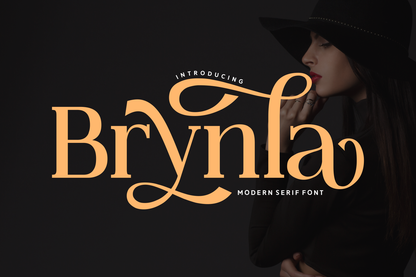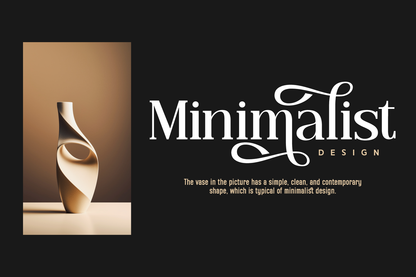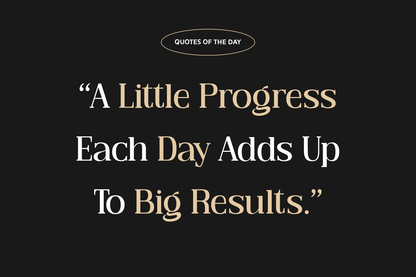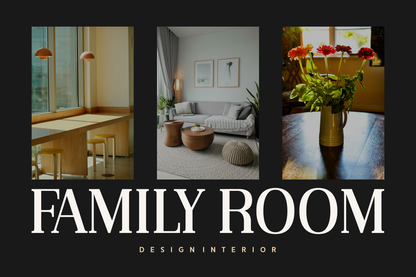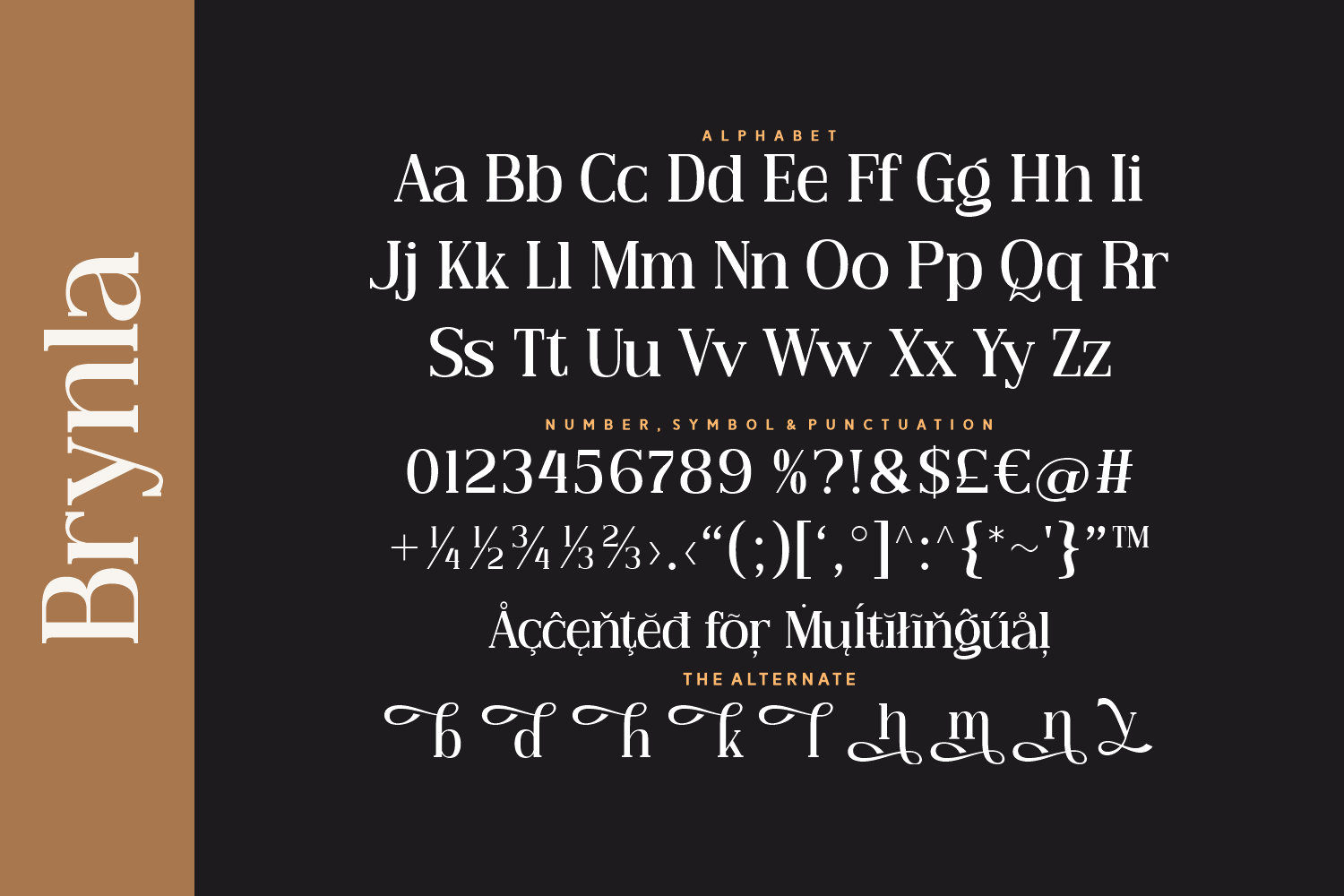
Brynla is an expressive modern serif font with luxurious swashes and eye-catching ligatures. Its elegant curves and fashionable personality make it a favorite for high-end branding, beauty products, logos, and invitations.
Every letter is crafted to turn heads and add a touch of drama without sacrificing readability.
Let your brand speak with grace, glamour, and flair.